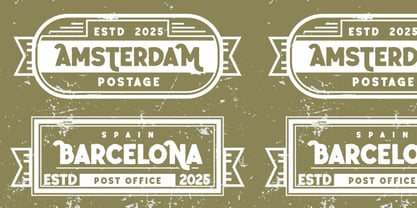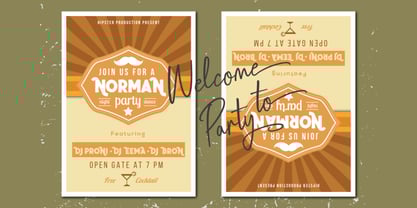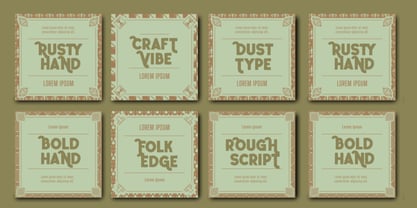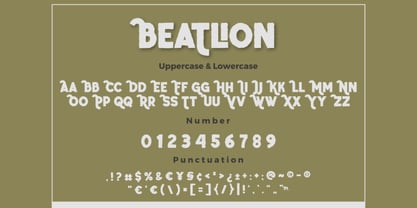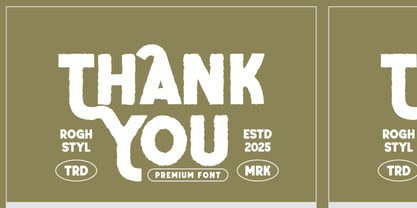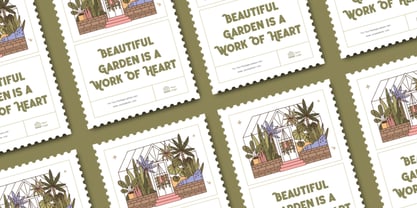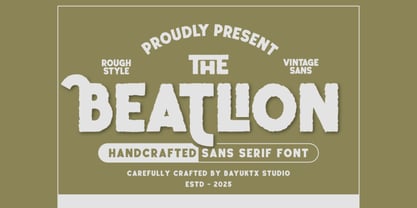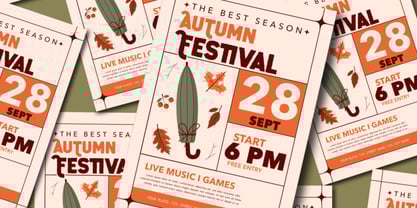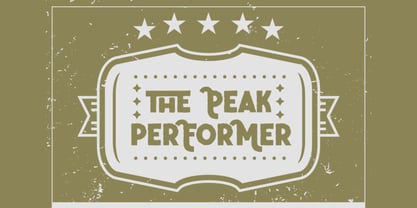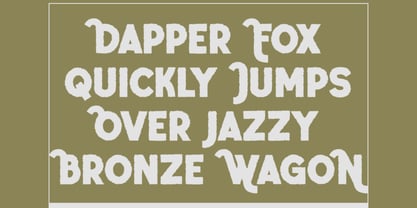
The Beatlion
by Bayuktx
The The Beatlion Font Family was designed by Bayu Aji Fais Mursid and published by Bayuktx. The Beatlion contains 1 styles. More about this family
The Beatlion – Handcrafted Vintage Rough Font The Beatlion is a handcrafted vintage rough font that combines vintage charm with a bold, rustic attitude. Designed with a natural rough texture, it delivers an authentic handcrafted look inspired by classic sign painting, retro posters, and old-style branding. Each letter carries a strong handmade spirit that brings warmth and personality to your design. Perfect for branding, packaging, merchandise, posters, and typography art, The Beatlion adds a raw yet refined edge to any creative project. Its handcrafted strokes and imperfect outlines give a natural feel — ideal for designs that seek authenticity and strength. Key Features : * Uppercase & Lowercase * Numerals & Punctuation * Multilingual Support * PUA Encoded & OpenType Features Suitable For : * Vintage Posters & Flyers * Logos & Branding * Quotes & Typography Design * Fashion & Merchandise * Packaging & Labels Bring your projects to life with The Beatlion, a handcrafted Vintage Rough font that embodies character, creativity, and timeless rough beauty.
Designers: Bayu Aji Fais Mursid
Foundry: Bayuktx